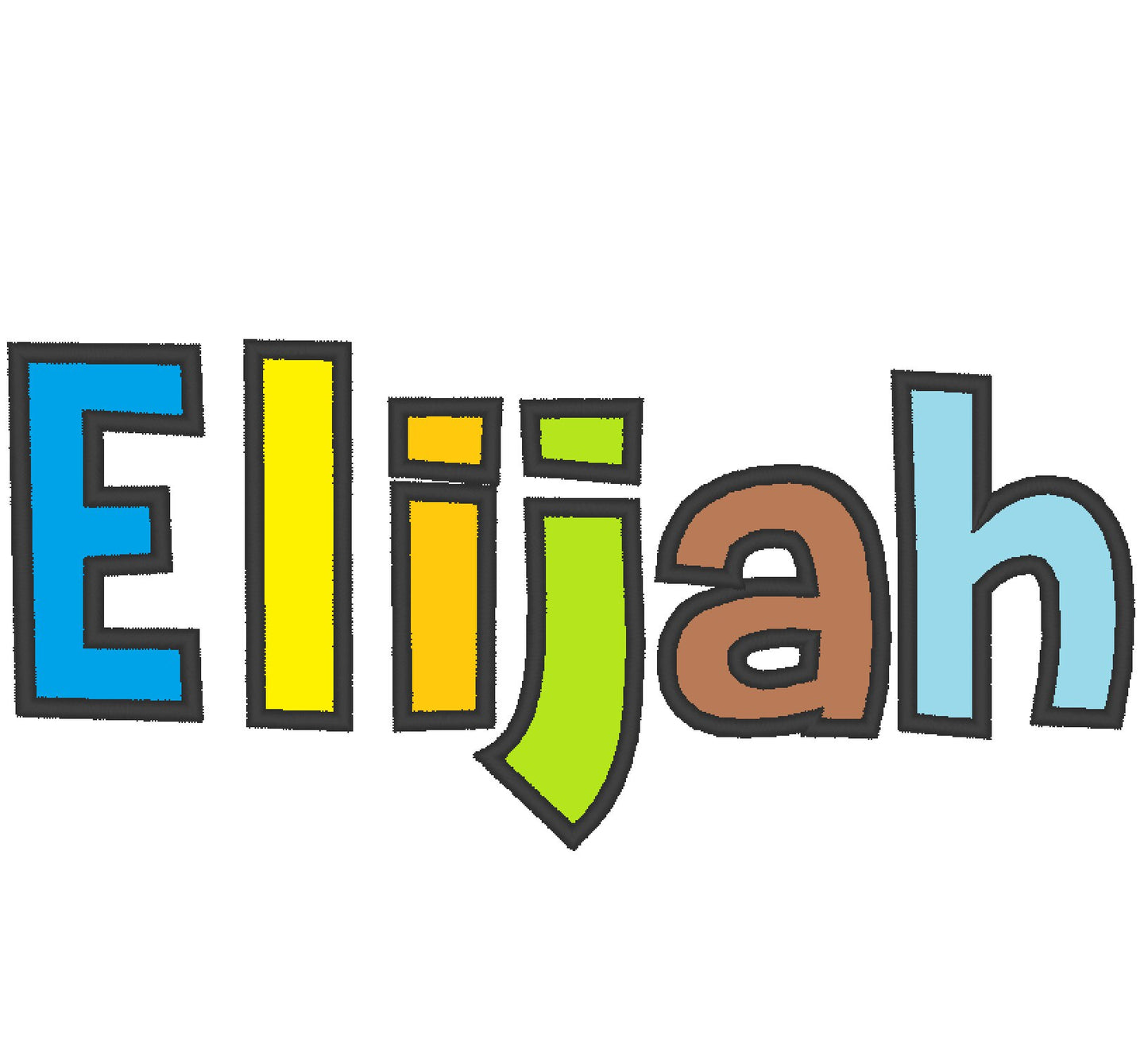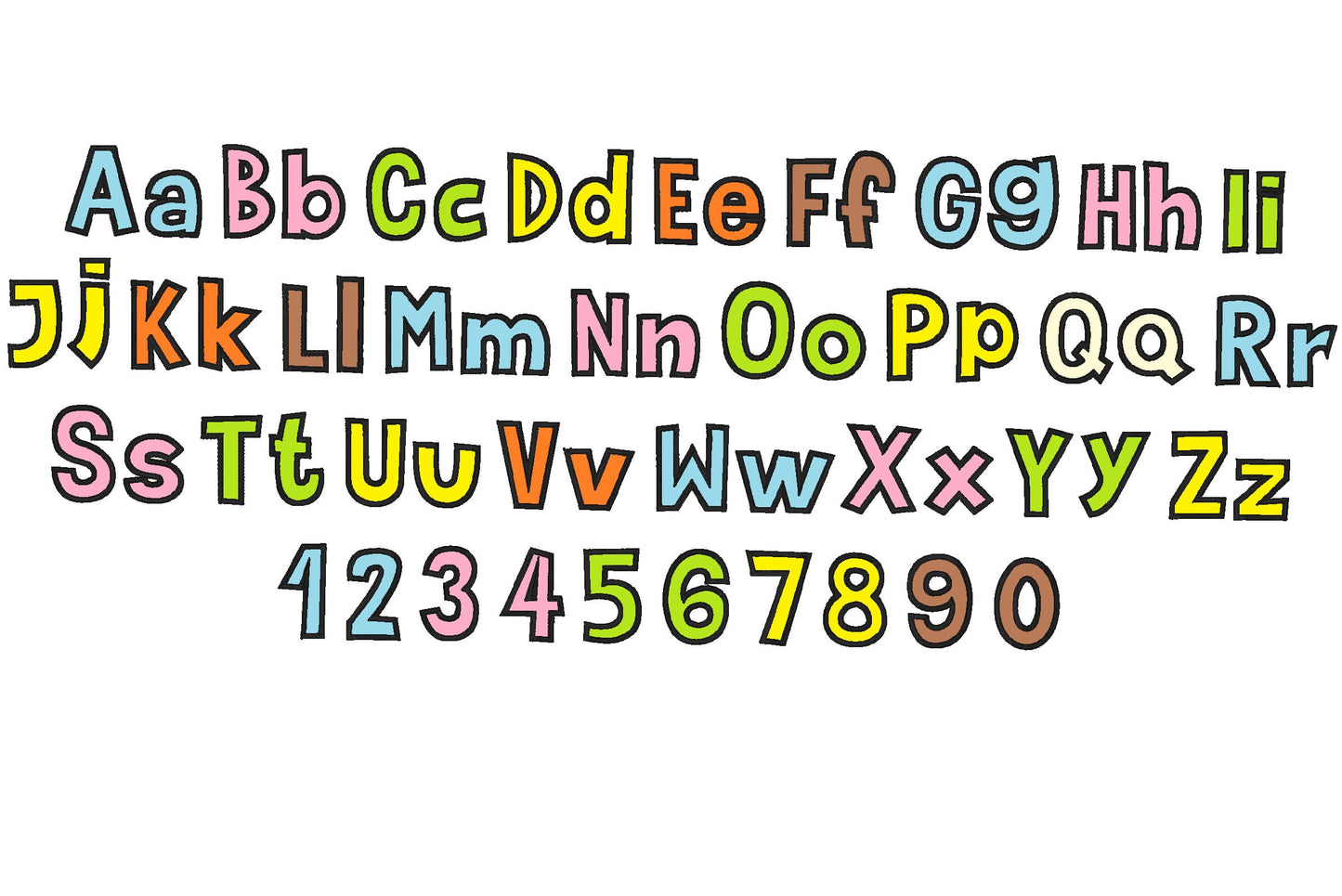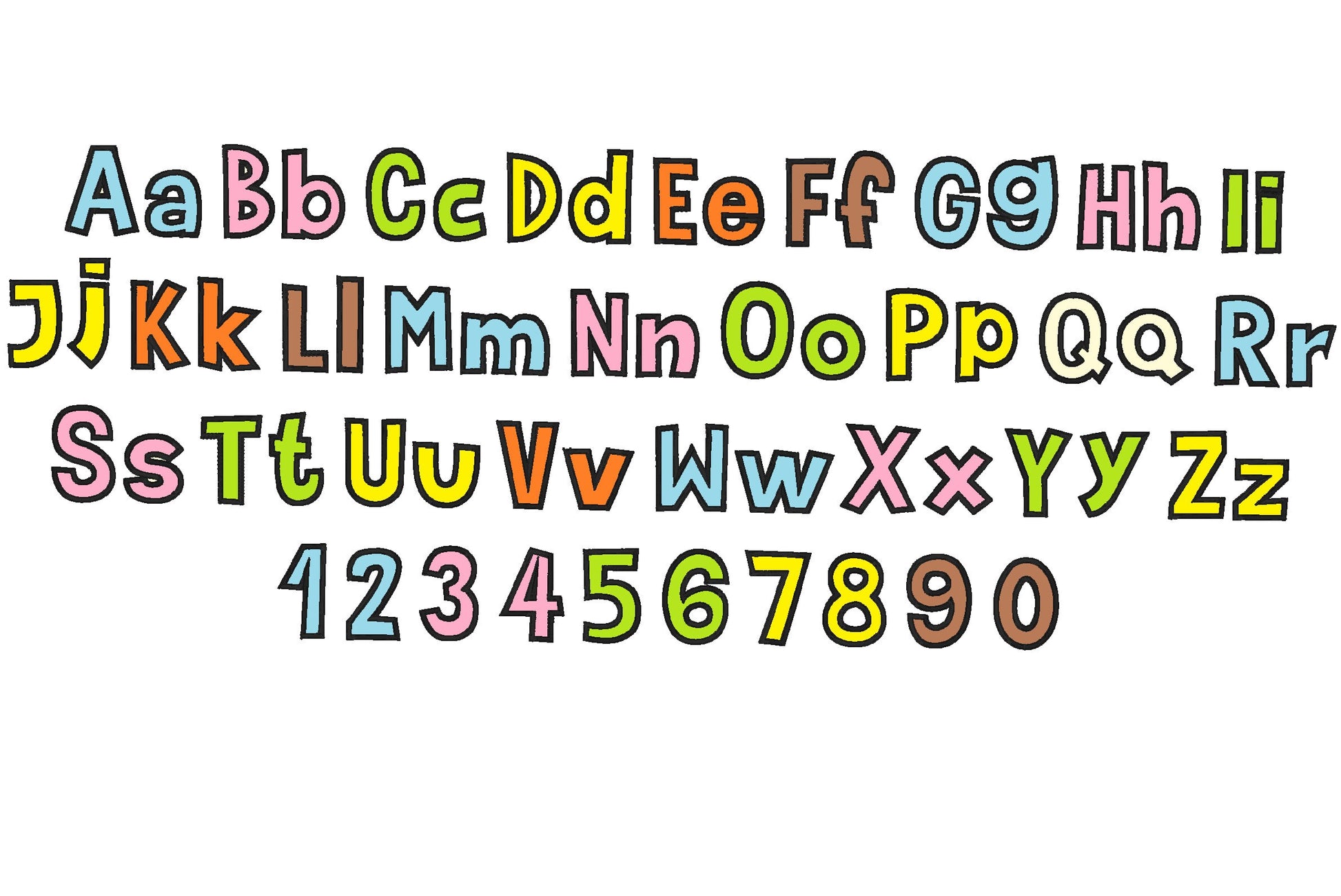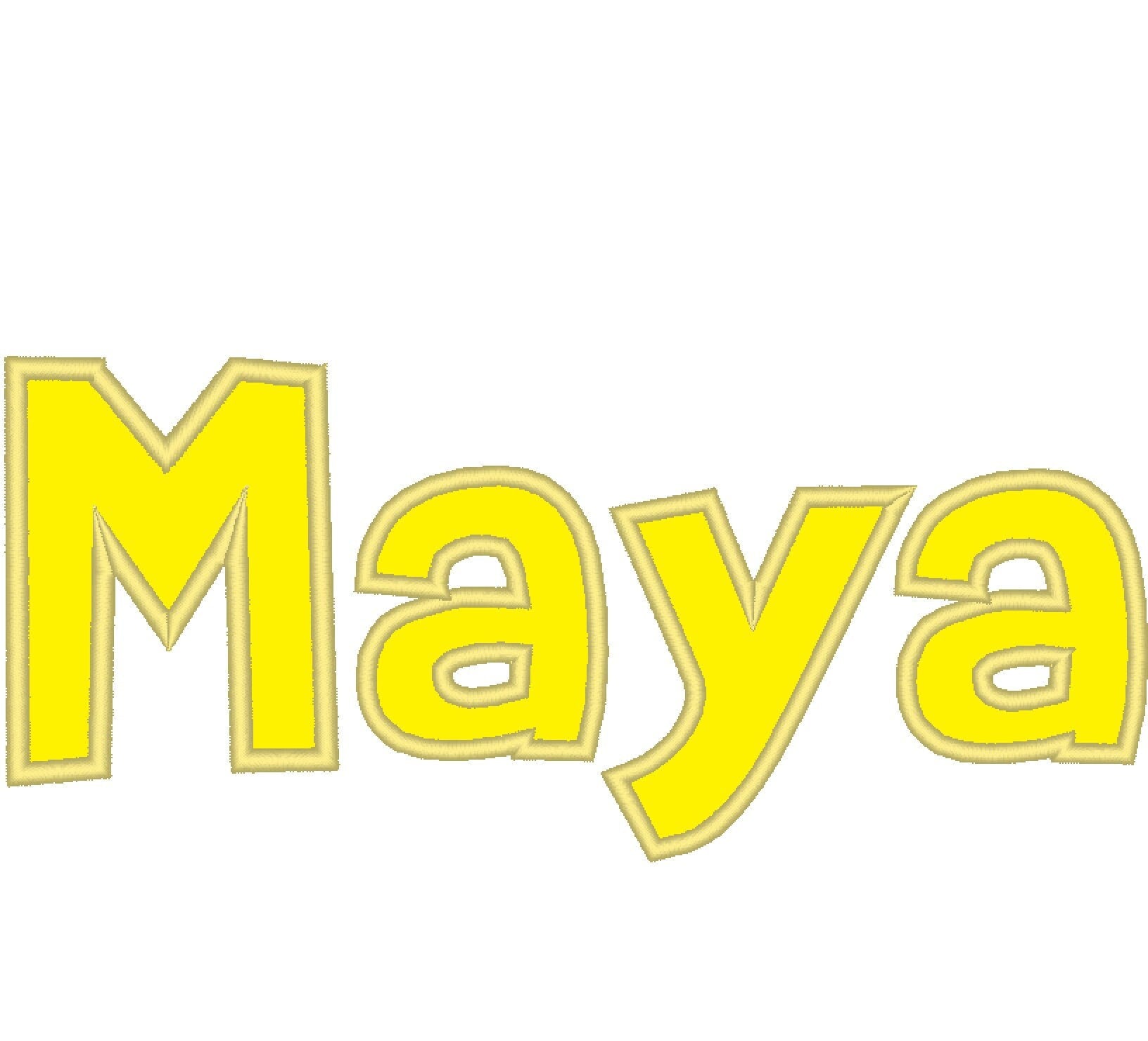
Satin Stitch Outline Applique Font Maya
Or click to open the linkAn applique monogram font with a satin stitch outline, for names and initials on towels, pillows and kids' clothes.
Applique letters with a satin outline. Uppercase and lowercase letters, numbers 0 to 9 and punctuation in eight sizes: 1.5, 2, 2.6, 3, 3.5, 4, 4.5 and 5 inches.
- Satin outline applique font
- Uppercase, lowercase, numbers 0 to 9, punctuation
- 8 sizes, 1.5 to 5 in